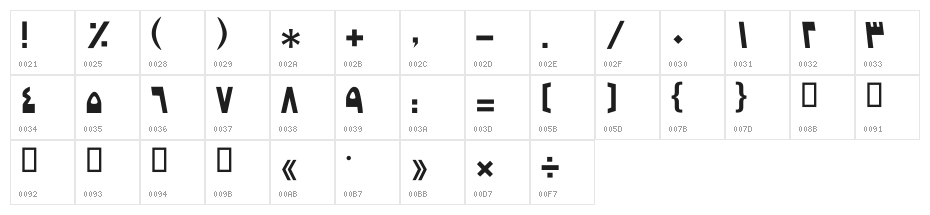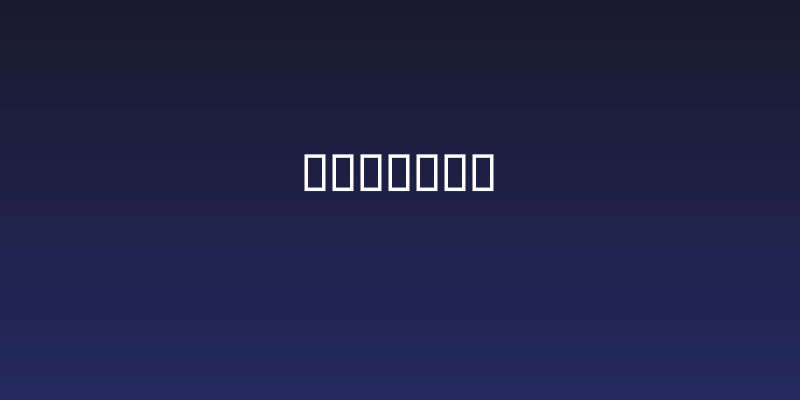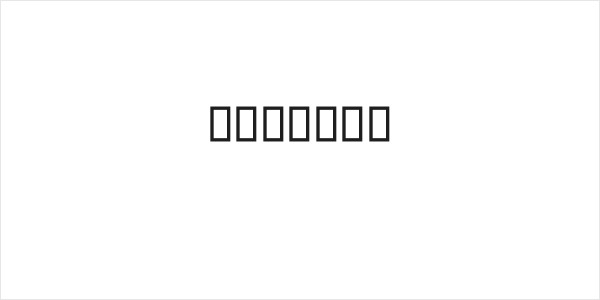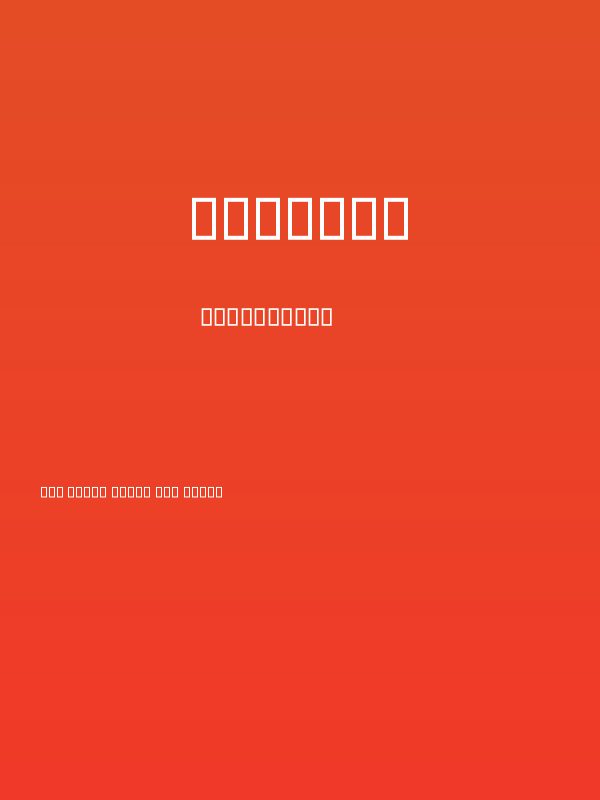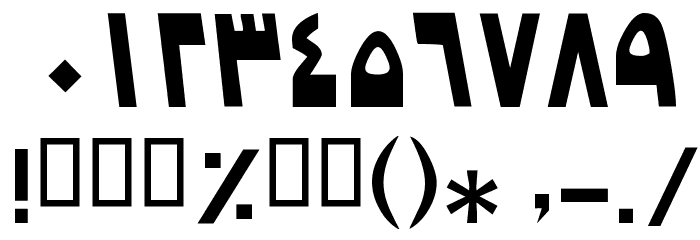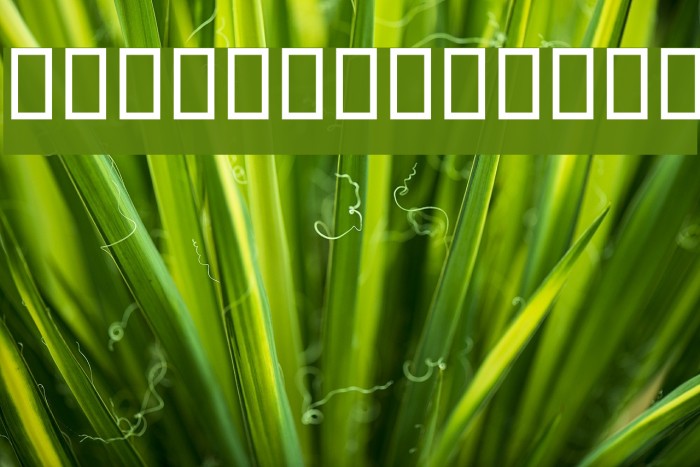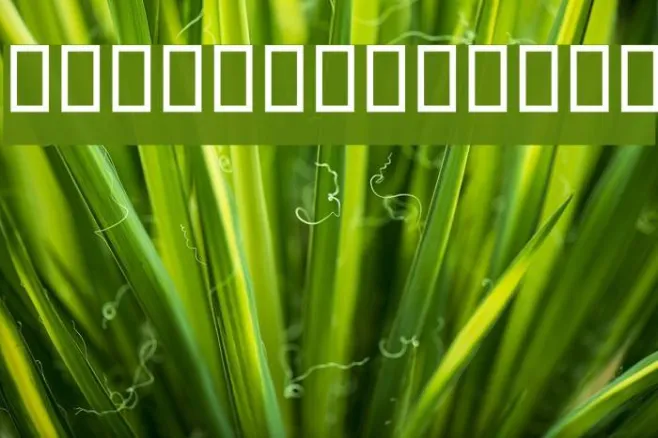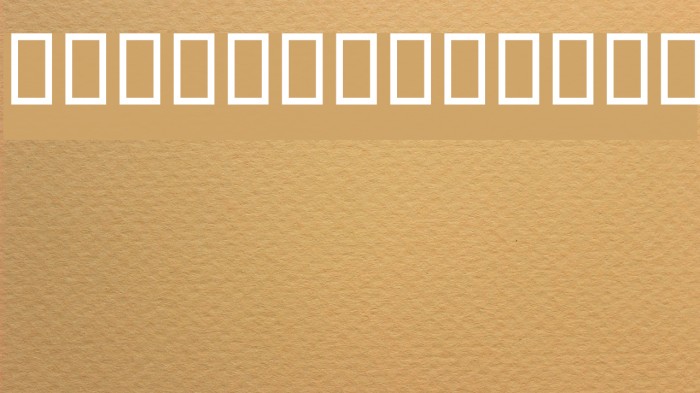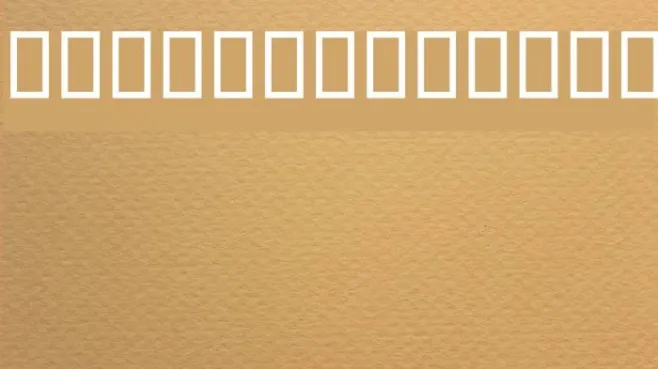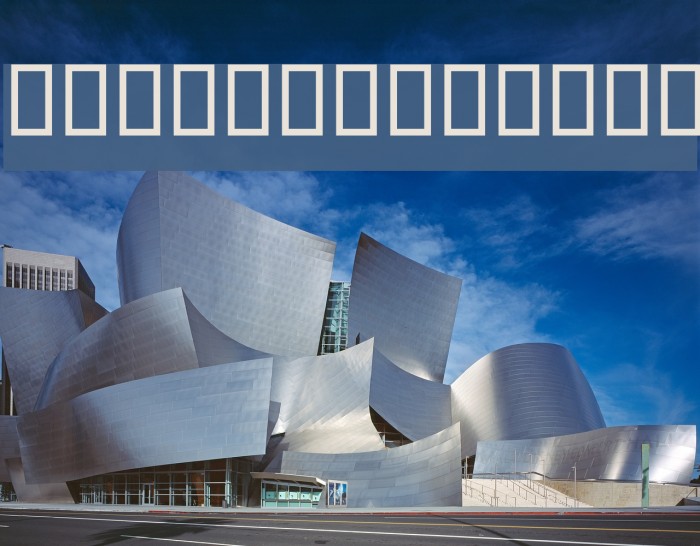
Alefbaa Font
Alefbaa Description
This font features a bold and modern design with a strong geometric influence. The characters are crafted with thick, uniform strokes, giving them a robust and impactful appearance. The numerals and special characters maintain the same boldness, ensuring consistency across all glyphs. The font's style is highly suitable for creating attention-grabbing headlines and logos. Its clean lines and solid structure make it versatile for various design projects that require a contemporary and assertive look.
| Proposed Projects | This font is perfect for branding projects, poster designs, and digital media where a strong visual impact is needed. It can also be used in editorial layouts to highlight key sections or titles. |